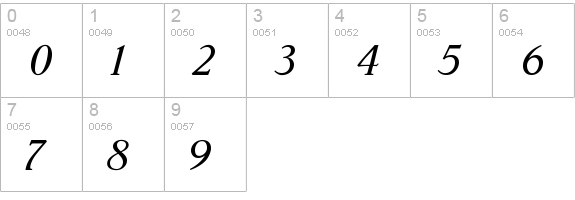
Parkinson-Italic is a distinctive, italic variant in the Parkinson typeface family \xE2\x80\x94 well suited to design and typography projects.
Introducing Parkinson-Italic, a striking and elegant font that exudes sophistication and charm. With its sleek and slender letterforms, Parkinson-Italic is perfect for adding a touch of grace to any design project. This font boasts a unique blend of curves and angles, resulting in a harmonious balance that catches the eye and captivates the reader. Its italicized style adds a sense of dynamism and movement, making it ideal for conveying a sense of energy and momentum. But what truly sets Parkinson-Italic apart is its availability as a free download. That's right, this stunning font can be yours without any cost, making it a valuable asset for designers and creatives on a budget. You can easily access Parkinson-Italic at FontsMarket.com, a trusted online source for high-quality fonts. Whether you're working on a branding project, a magazine layout, or a website design, Parkinson-Italic will elevate your work to new heights. Its versatility allows it to seamlessly adapt to various design styles, ensuring that it remains a timeless and enduring choice. With Parkinson-Italic, you'll have the freedom to explore your creativity and bring your visions to life. Its clean and legible characters make it suitable for both headlines and body text, ensuring readability without compromising on style. So, why settle for less when you can have Parkinson-Italic? Download this remarkable font for free at FontsMarket.com and let your designs shine with elegance and sophistication.